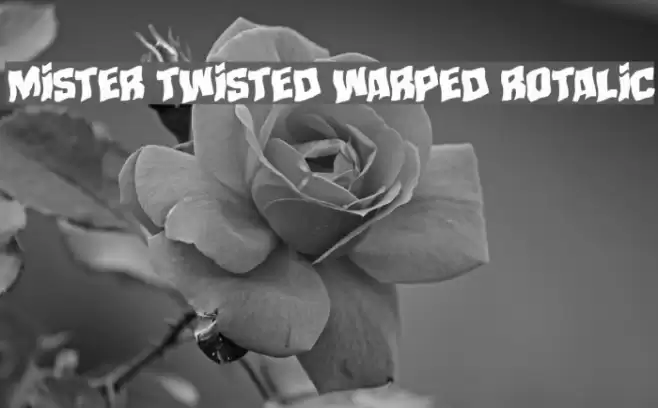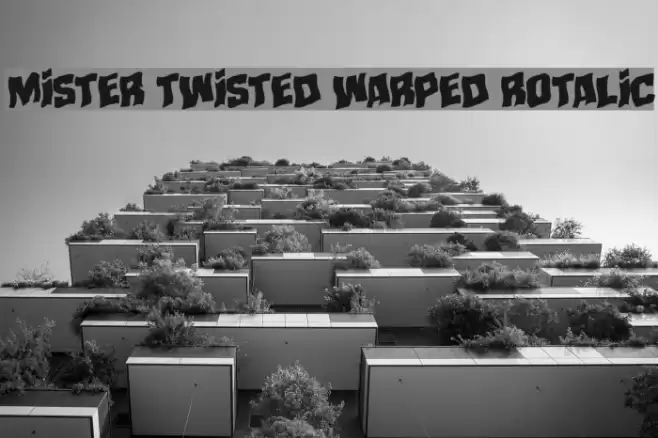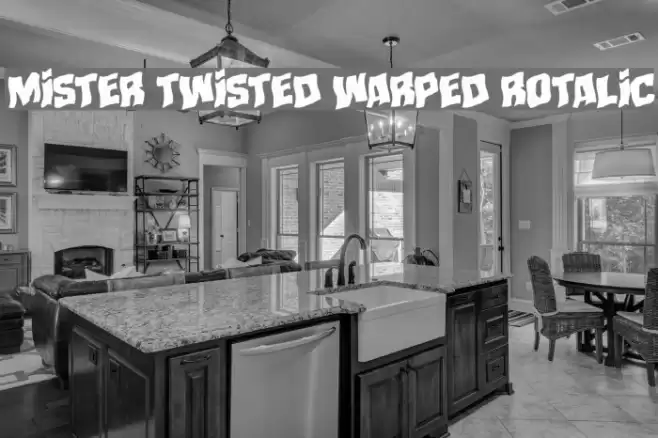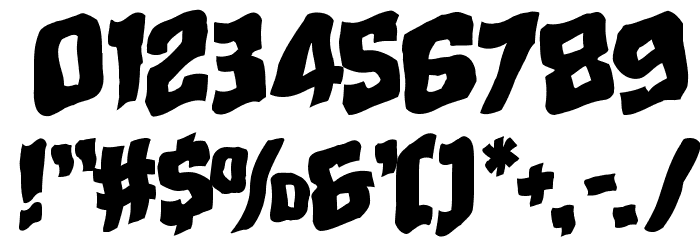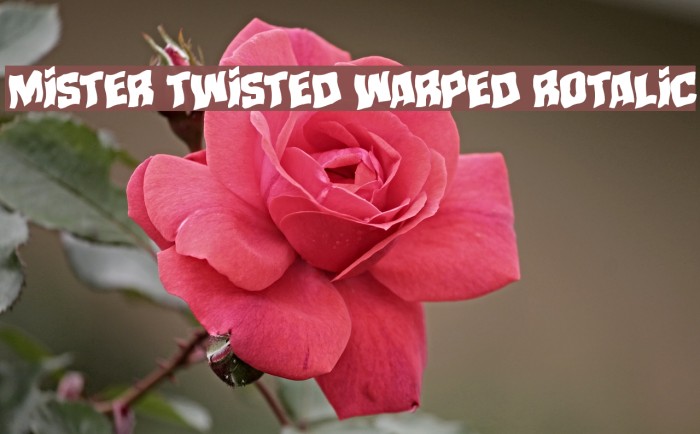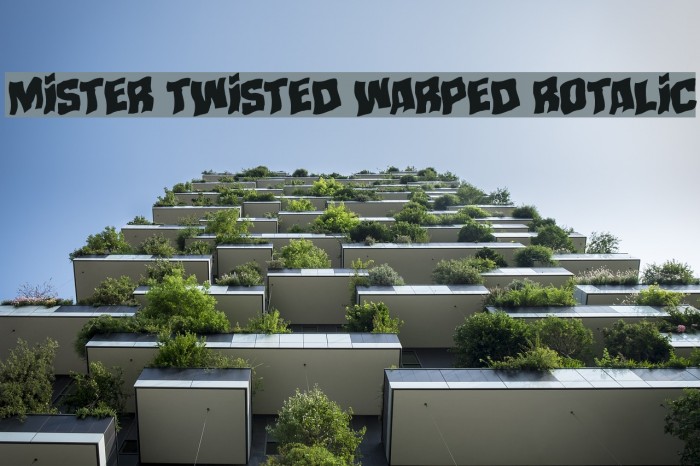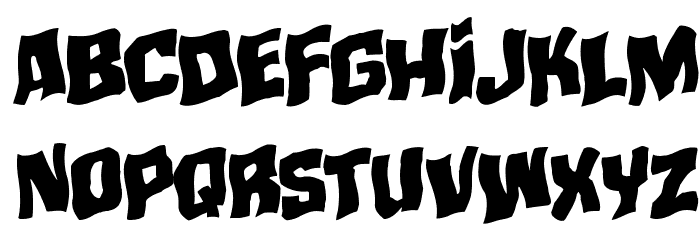
Mister Twisted Warped Rotalic Font
Mister Twisted Warped Rotalic Description
This font features a bold and dynamic style with a twisted and warped appearance, giving each character a unique and playful look. The letters are heavily stylized, with exaggerated curves and angles that create a sense of movement and energy. The font's irregular shapes and bold strokes make it stand out, making it ideal for eye-catching designs. The uppercase and lowercase letters maintain a consistent style, while the numbers and special characters complement the overall aesthetic. This font is perfect for projects that require a fun and unconventional typeface.
A bold, twisted, and playful font with exaggerated curves and angles from Uncategorized fonts.
- Proposed Projects: Ideal for posters, album covers, comic books, and creative branding projects.